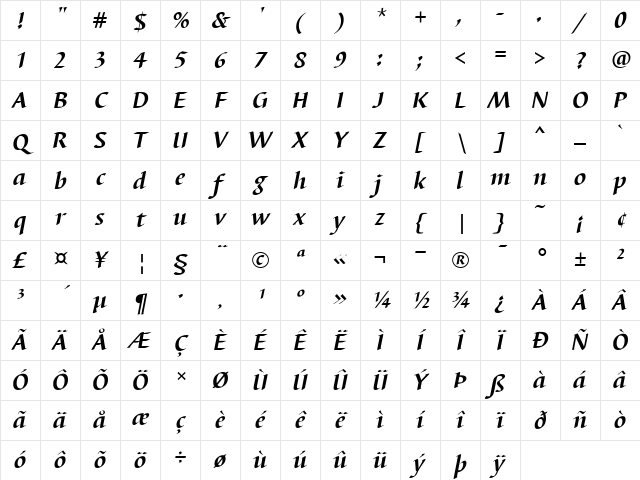
Barbedor T ItalicBold
Style: ItalicBold
Foundry: by URW
Design Context for Barbedor T
Barbedor T is a composed and adaptable typeface that performs quietly and consistently across a wide range of design contexts. The slanted form adds forward momentum and visual energy. Its bold stroke weight gives it real presence on the page.
Pro Tip: Use Barbedor T for emphasis, pull quotes, and subheadings where its slanted energy can add rhythm to the layout.